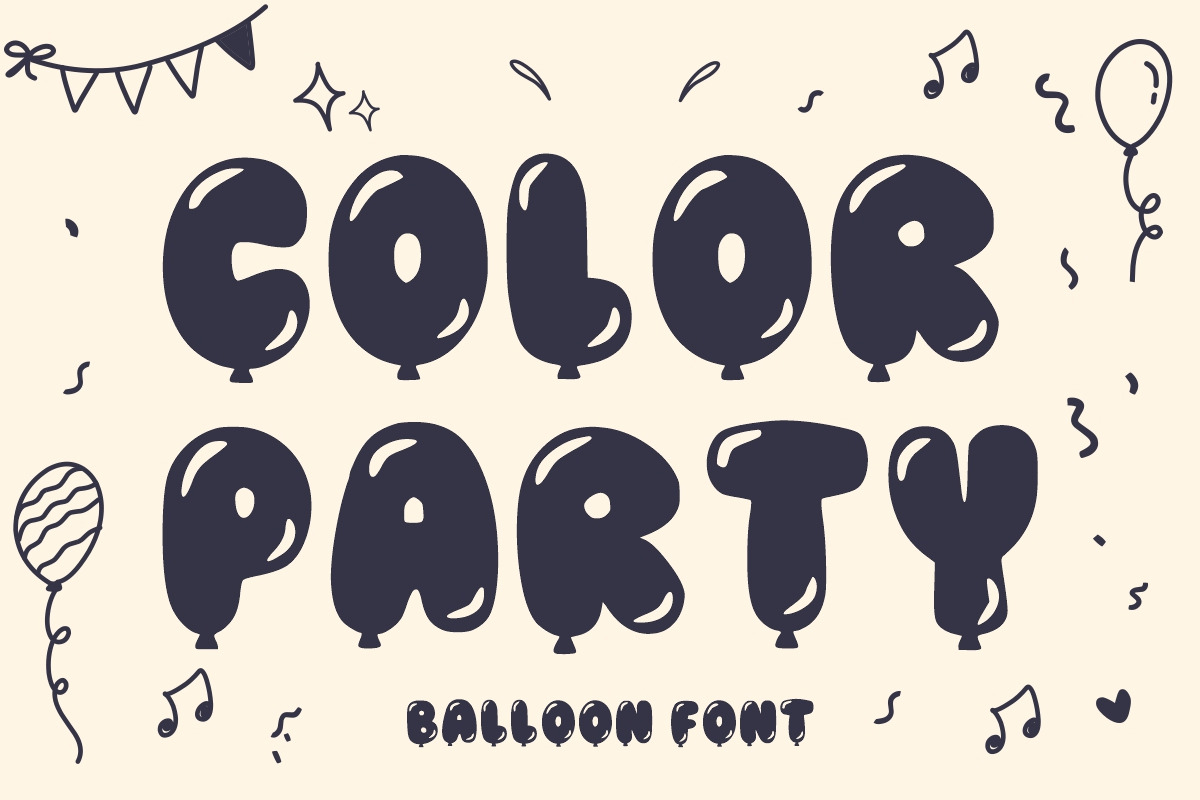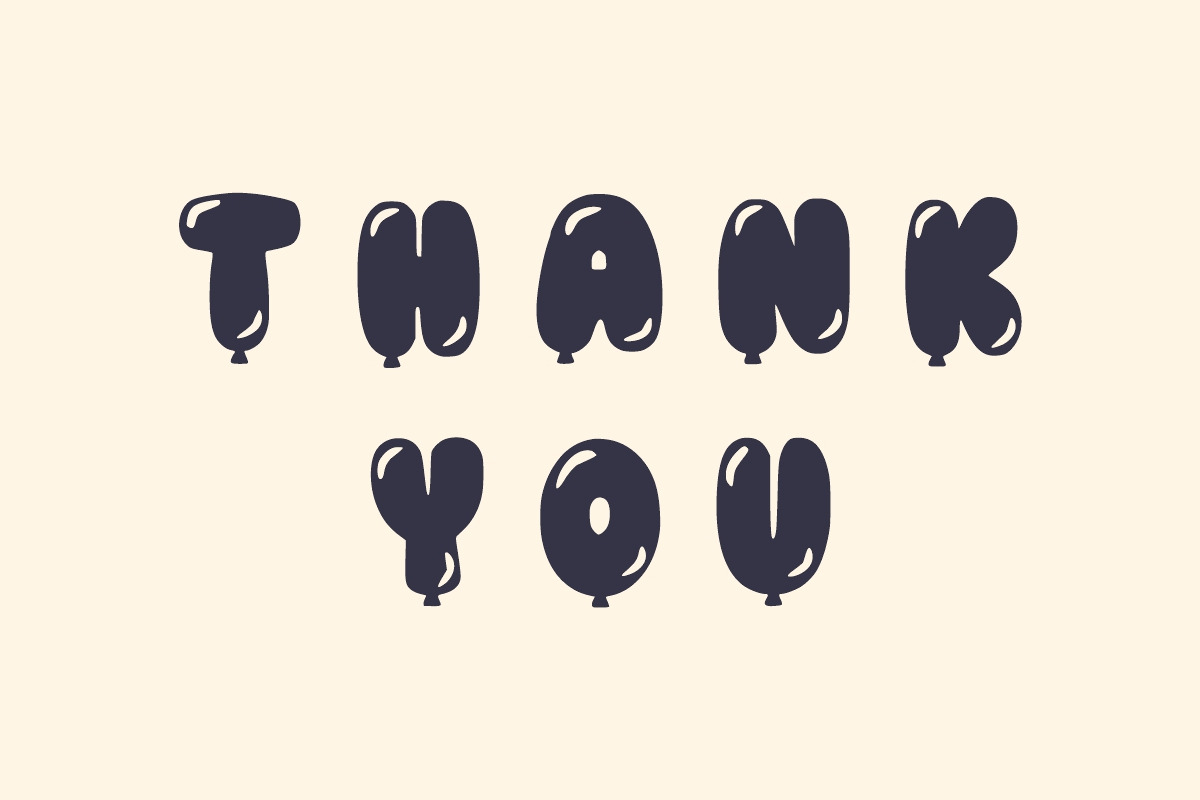
Color Party Cartoon Bubble font
Get the celebration started with Color Party font, a lively and cheerful balloon-style typeface designed to bring instant joy to any project.
This playful Color Party typeface features soft, rounded letters that mimic inflated balloons, making your text appear hand-drawn and energetic. The Color Party font is the perfect go-to for birthdays, baby showers, and festive social media graphics where a “bubbly” and friendly aesthetic is key. Pair it with confetti icons and bright palettes to make your messages truly “pop” off the screen.
Whether you’re designing for children’s books, birthday party invitations, learning materials, T-shirt prints, stickers, or classroom décor, Super Bounce delivers an extra pop of personality and warmth.
This display font stands out beautifully in big sizes and pairs perfectly with vibrant color palettes and fun illustrations.